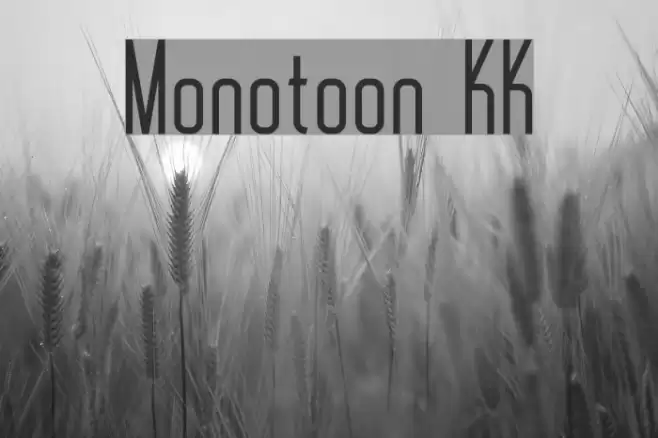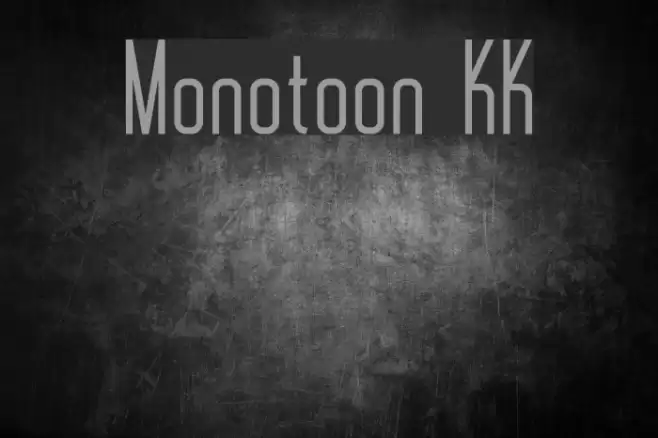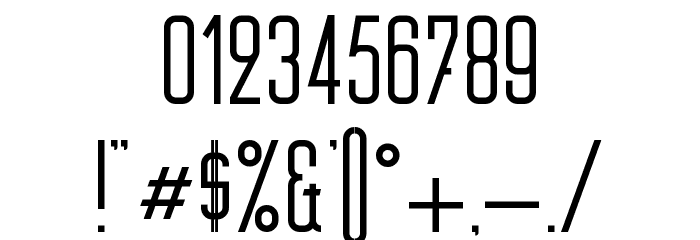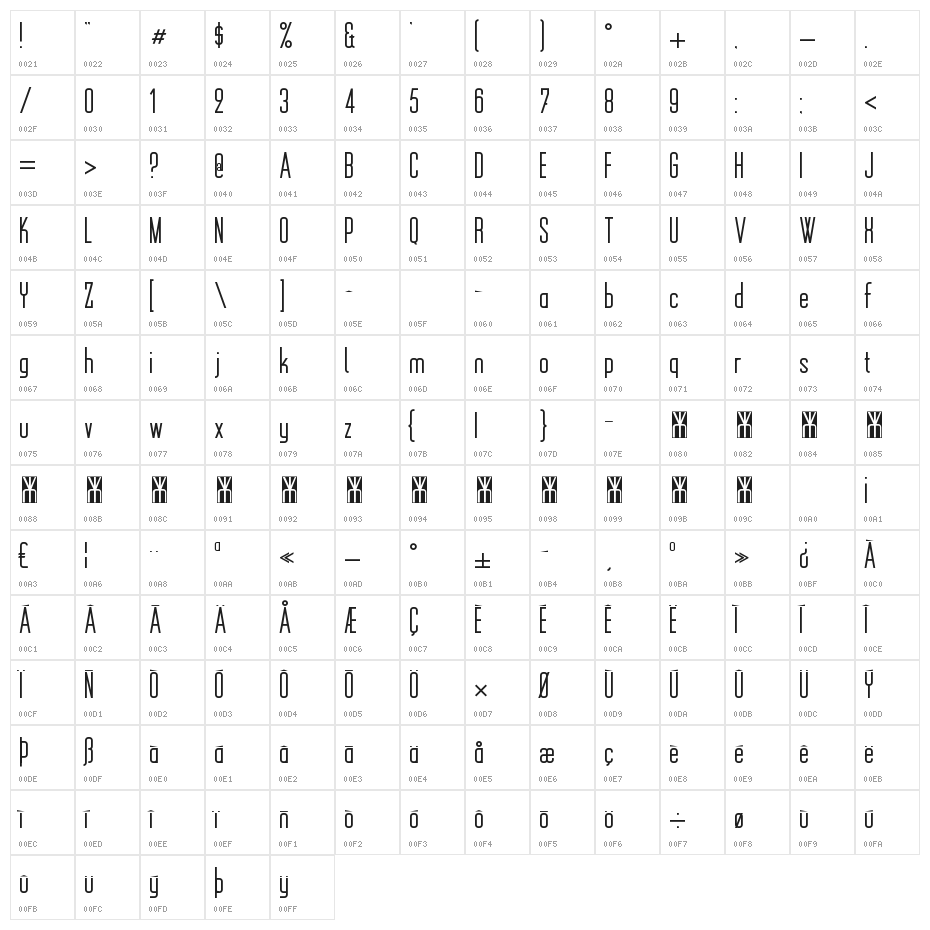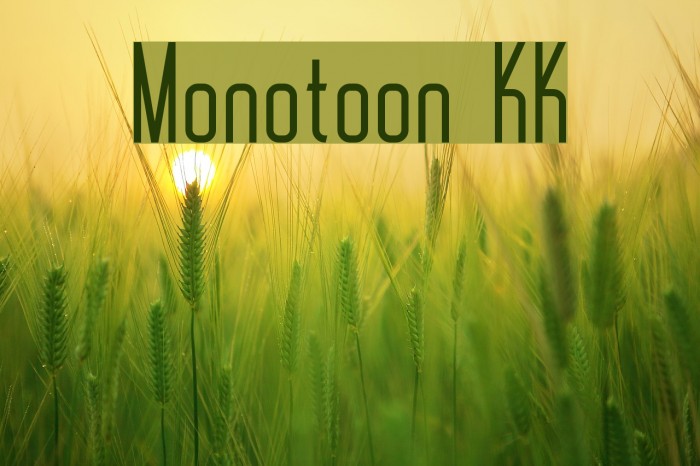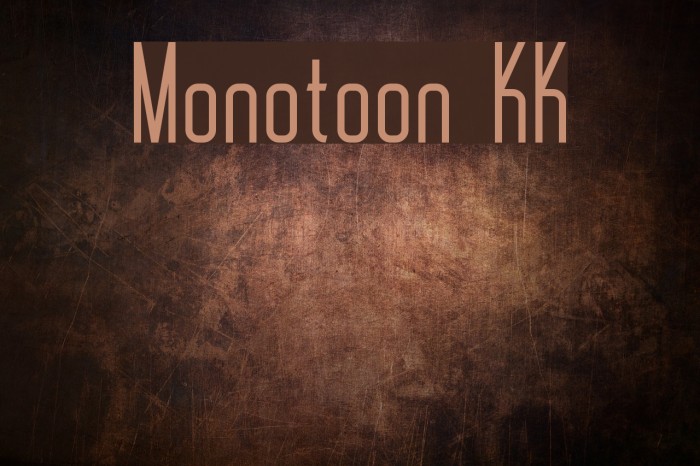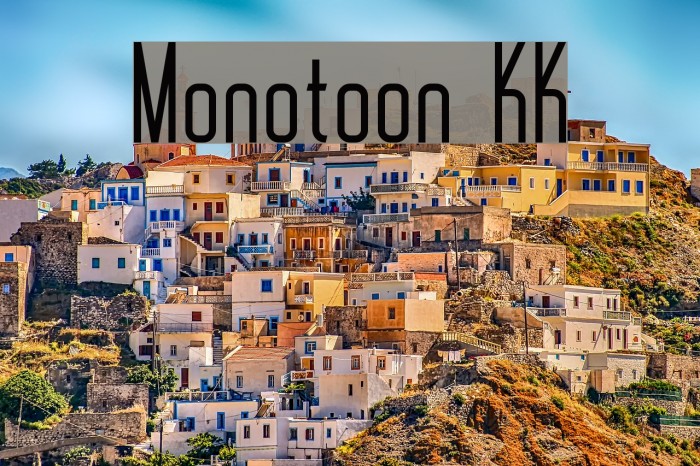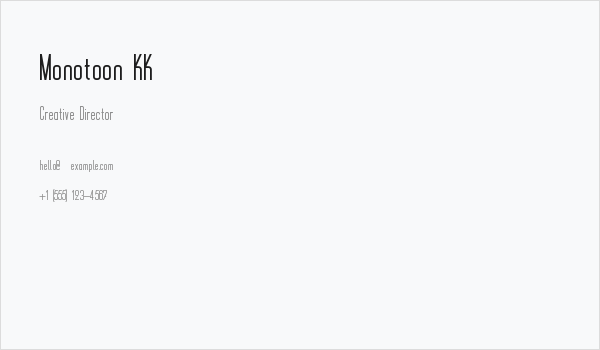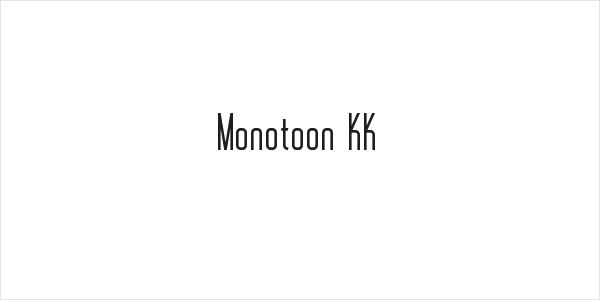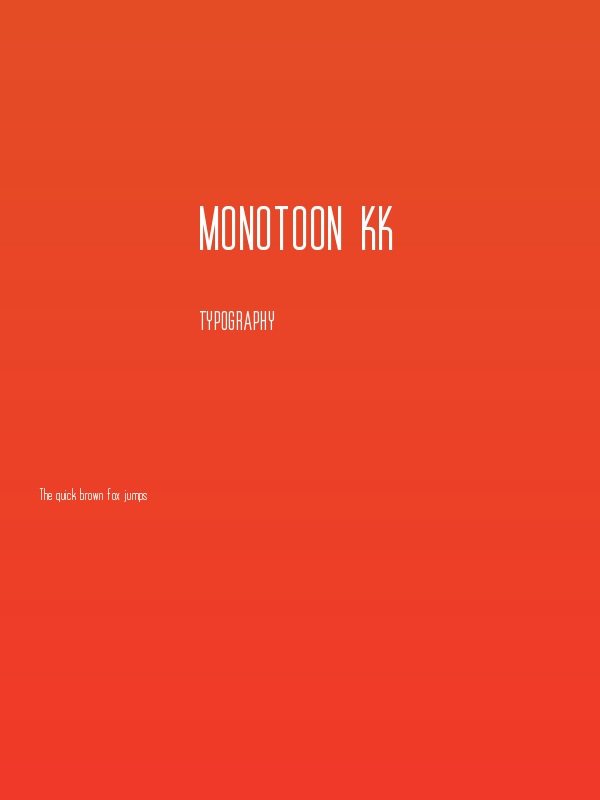
Monotoon KK Font
Monotoon KK Description
This font features a clean, geometric design with uniform stroke widths, giving it a modern and minimalist appearance. The characters are tall and narrow, contributing to a condensed look that maximizes vertical space. The uppercase letters are particularly striking, with a consistent height and sharp angles that create a sense of precision and order. The lowercase letters maintain the same geometric style, ensuring readability while preserving the font's unique aesthetic. Numbers and special characters are designed with the same attention to detail, making them easily distinguishable and visually appealing. This font's simplicity and clarity make it versatile for various design applications.
A modern, geometric font with a clean, condensed style from Uncategorized fonts.
- Proposed Projects: Ideal for branding, editorial design, posters, and digital interfaces where a modern and clean look is desired.